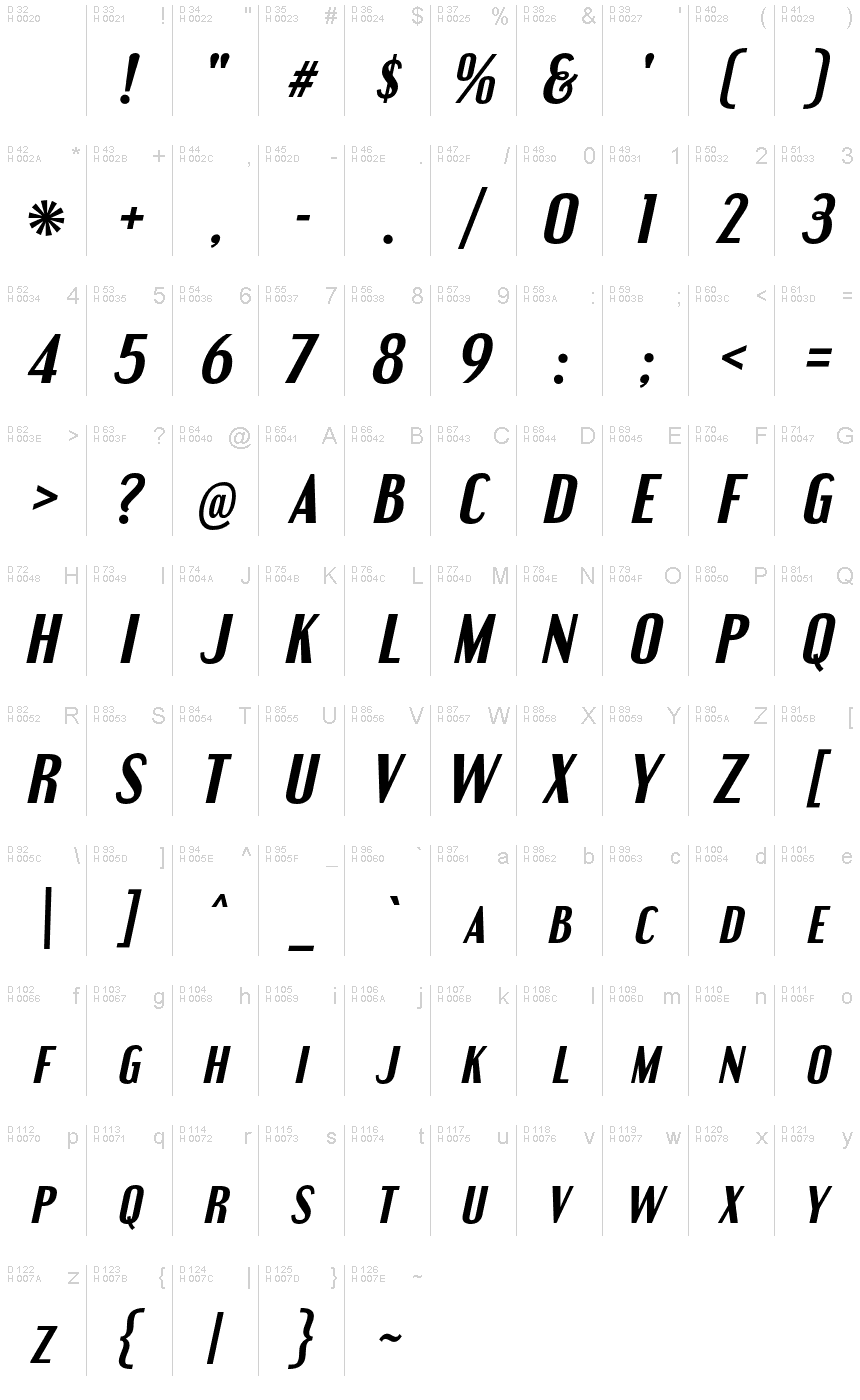
Engebrechtre Bold Italic by Ray Larabie of Typodermic Fonts Inc. is a free condensed sans serif with a forceful forward slant. Tall, tightly drawn letters combine broad main strokes with sharply tapered joins and narrow openings.
Speed and competition are its clearest themes. It suits motorsport posters, athletic branding, album covers, and event graphics because the compressed forms feel urgent and assertive. Against racing photography or angular illustration, the steep strokes can echo directional lines and become part of the visual action.
Engebrechtre is an early-20th-century stressed sans-serif typeface created in 2000. All styles except the regular weight were discarded, and the font was rebuilt from the beginning. Spacing and kerning have been revised, and horizontal metrics have been optimized for web use.
The S has been redesigned. Accents have also been redesigned, and support for additional languages has been added. The italics use round dots rather than slanted dots. The font includes additional mathematical symbols, fractions, numeric ordinals, a new @ symbol, and the Indian rupee symbol. Vertical metrics have been optimized for web performance.